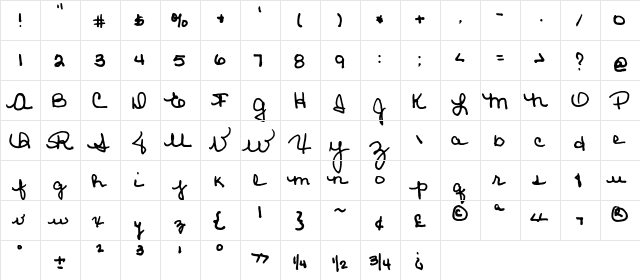
FG C Robles Regular
| Foundry | C Robles fonted by Font Garden |
Design Context for FG C Robles Typeface
FG C Robles is a composed and adaptable typeface that performs quietly and consistently across a wide range of design contexts.